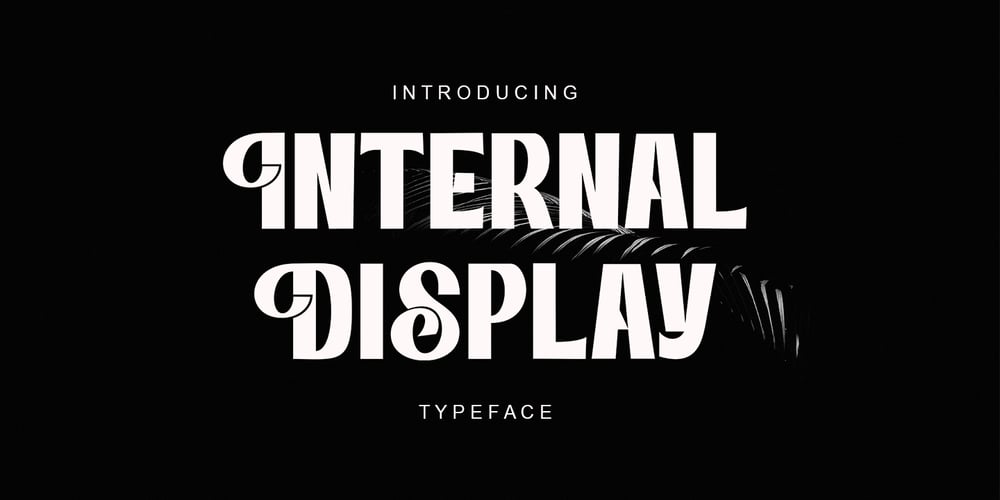
Internal Display
Internal Display font
Internal Display Font Family was designed by Teuku Fahruddin and published by Typehill Studio. Internal Display contains 1 styles and family package options. Internal Display attracts a typeface that is smooth, clean, unique, elegant, modern, feminine, sensual, glamorous, simple and very easy to read. Classic style is very suitable to be applied in various formal forms such as invitations, labels, menus, logos, fashion, make up, stationery, letterpress, romantic novels, magazines, books, greeting/wedding cards, packaging, labels.